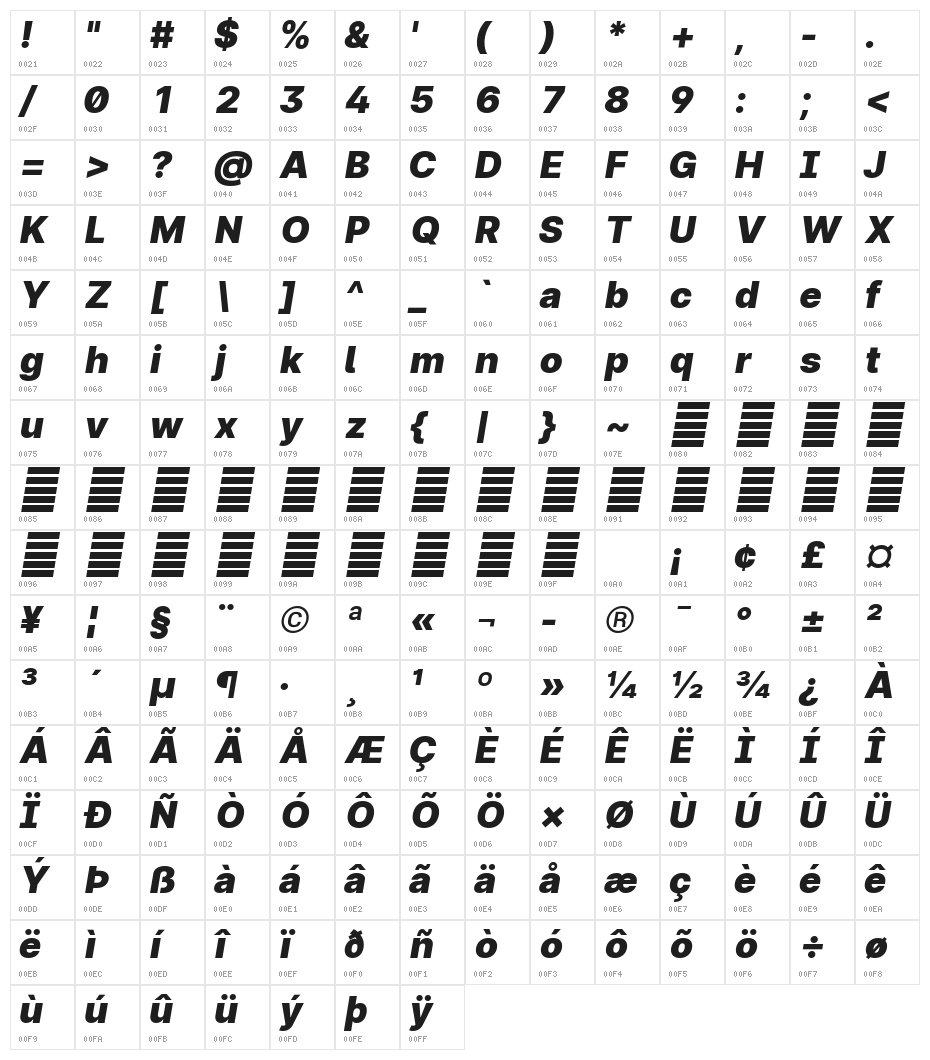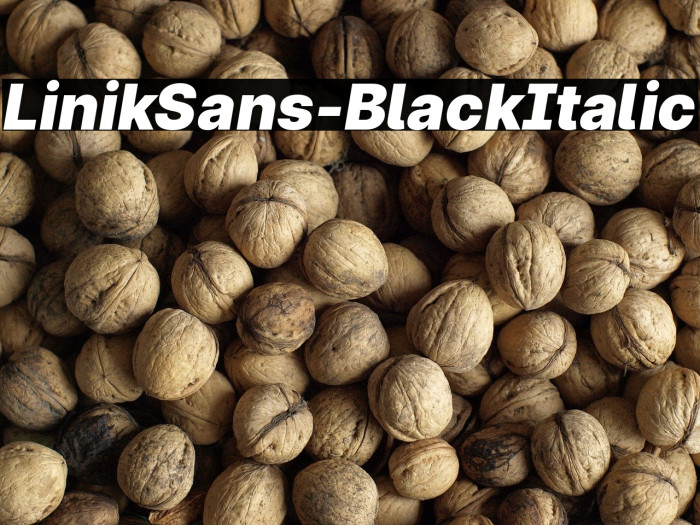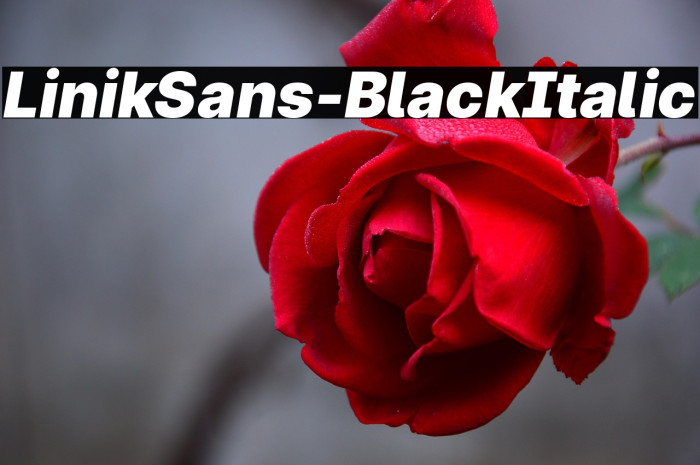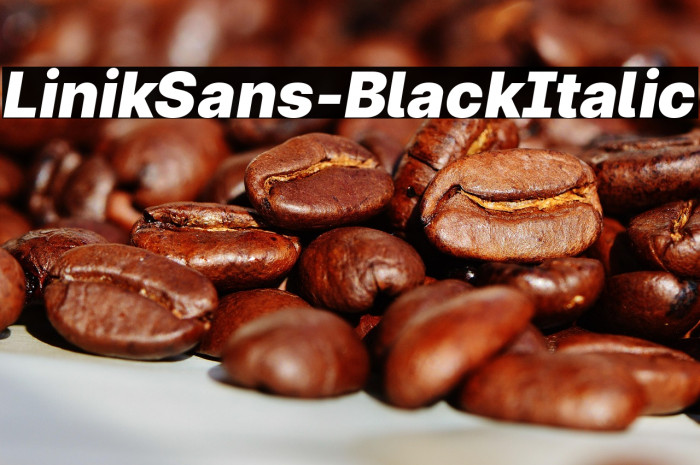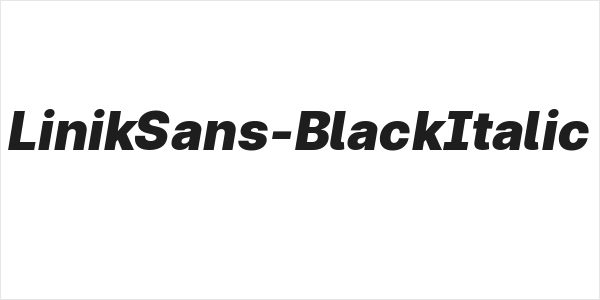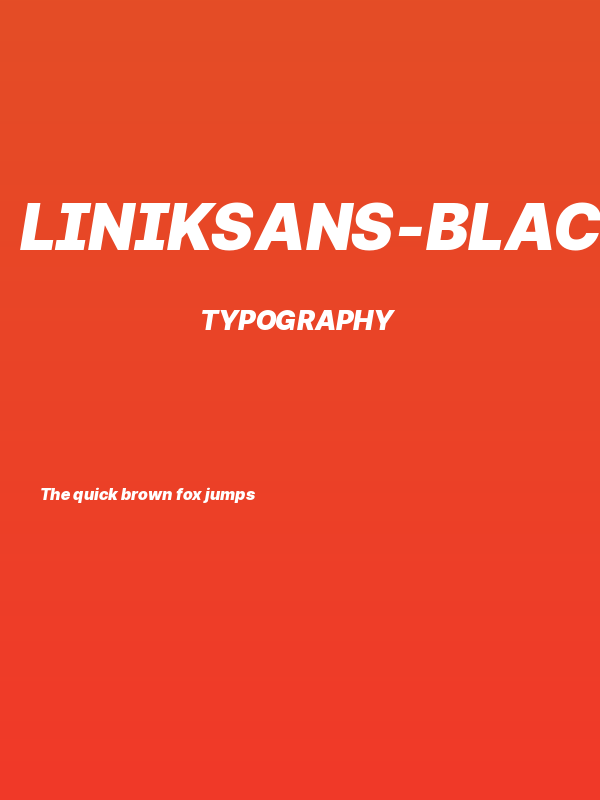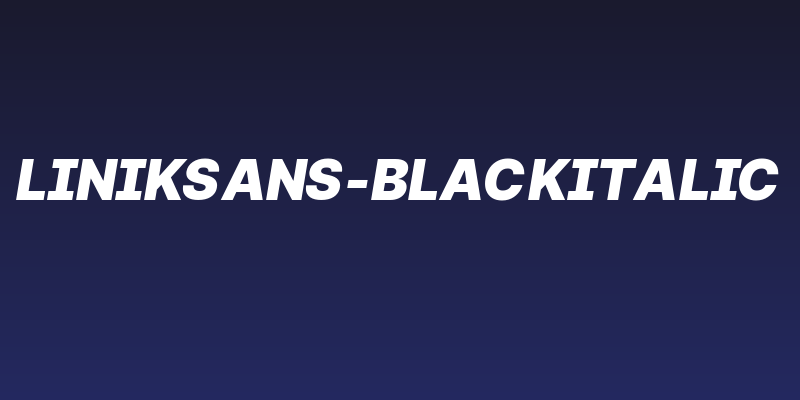
LinikSans-BlackItalic Font
LinikSans-BlackItalic Description
This font exhibits a bold and dynamic presence with its strong, thick strokes and italicized slant, giving it a sense of movement and urgency. The characters are well-defined with a modern sans-serif style, making it suitable for impactful headlines and attention-grabbing text. The uppercase and lowercase letters maintain a consistent weight, ensuring readability and uniformity across different sizes. The numerals and special characters are equally bold, complementing the overall robust appearance of the font. Its design is clean and straightforward, making it versatile for various design applications.